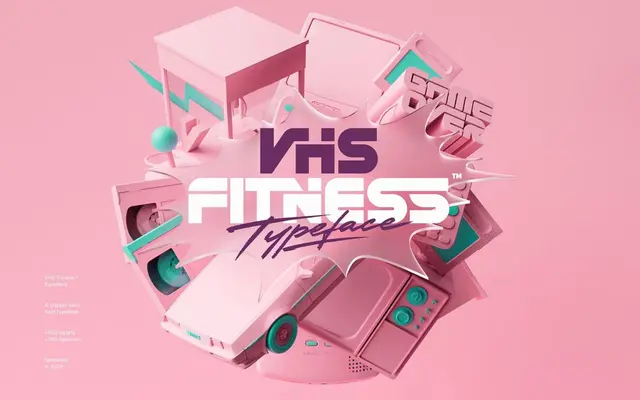
VHS Fitness Family
VHS Fitness Family specimen from Almarena
A free display sans-serif with a single weight, drawing on VHS-era aesthetics for headline and campaign use.
Designed by Jérémie Gauthier with art direction shared between Gauthier and Romain Billaud, this display sans references the visual language of VHS-era graphics. It ships in one weight with an italic, in OTF and WOFF formats, and covers an extensive range of Latin-script languages. Available free to download, with commercial merchandising use requiring separate licensing confirmation.
The foundry explicitly classifies this as a display sans-serif; the single-weight, VHS-referencing aesthetic confirms its purpose as a headline and display face rather than a text typeface.